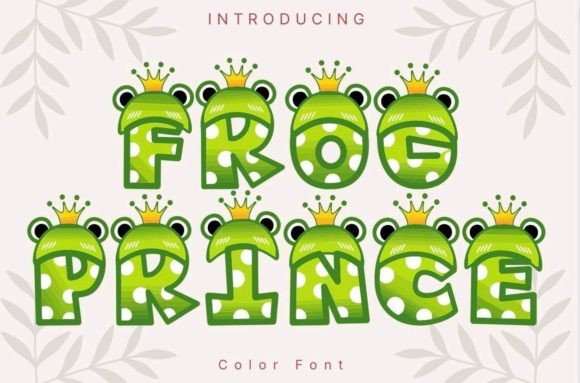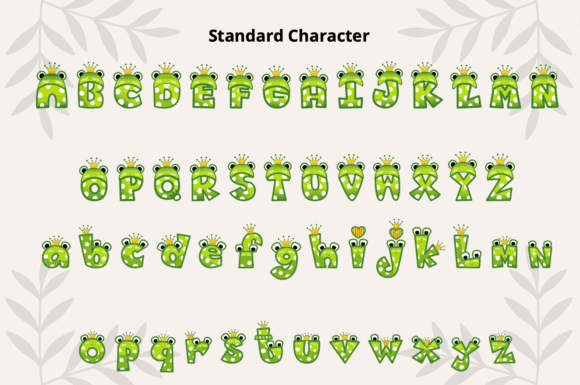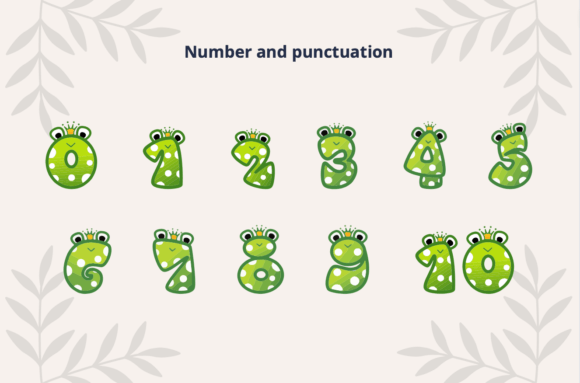
About Frog Prince Font
Introducing Frog Prince, a delightful and charming color font that will bring your designs to life! This adorable font is adorned with the sweetest little frog faces, adding a playful and authentic touch to any project.
Frog Prince is specifically designed to capture the imagination of children and create a sense of fun and excitement. Its whimsical and vibrant characters make it the perfect choice for any children’s activity or school project. Whether you’re designing educational materials, storybooks, invitations, or crafts, Frog Prince will instantly add a touch of magic and charm.
With Frog Prince, your designs will come alive with the playful energy of these cute frog faces. Each letter is meticulously crafted to showcase the unique personality of the frogs, ensuring that every word you create is filled with joy and wonder. The attention to detail in this font will make it a favorite among kids and adults alike.
Use Frog Prince to create eye-catching headlines, titles, or captions that will capture the attention of your audience. Whether it’s for a poster, a birthday card, a coloring book, or a classroom display, Frog Prince will make your designs stand out and bring a smile to everyone’s face.
So, let your creativity leap to new heights with Frog Prince! Add this amazing color font to your collection and watch as your designs come alive with the playful and authentic spirit of these adorable frog faces.